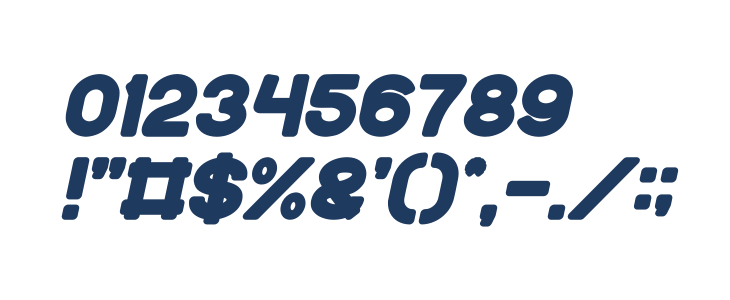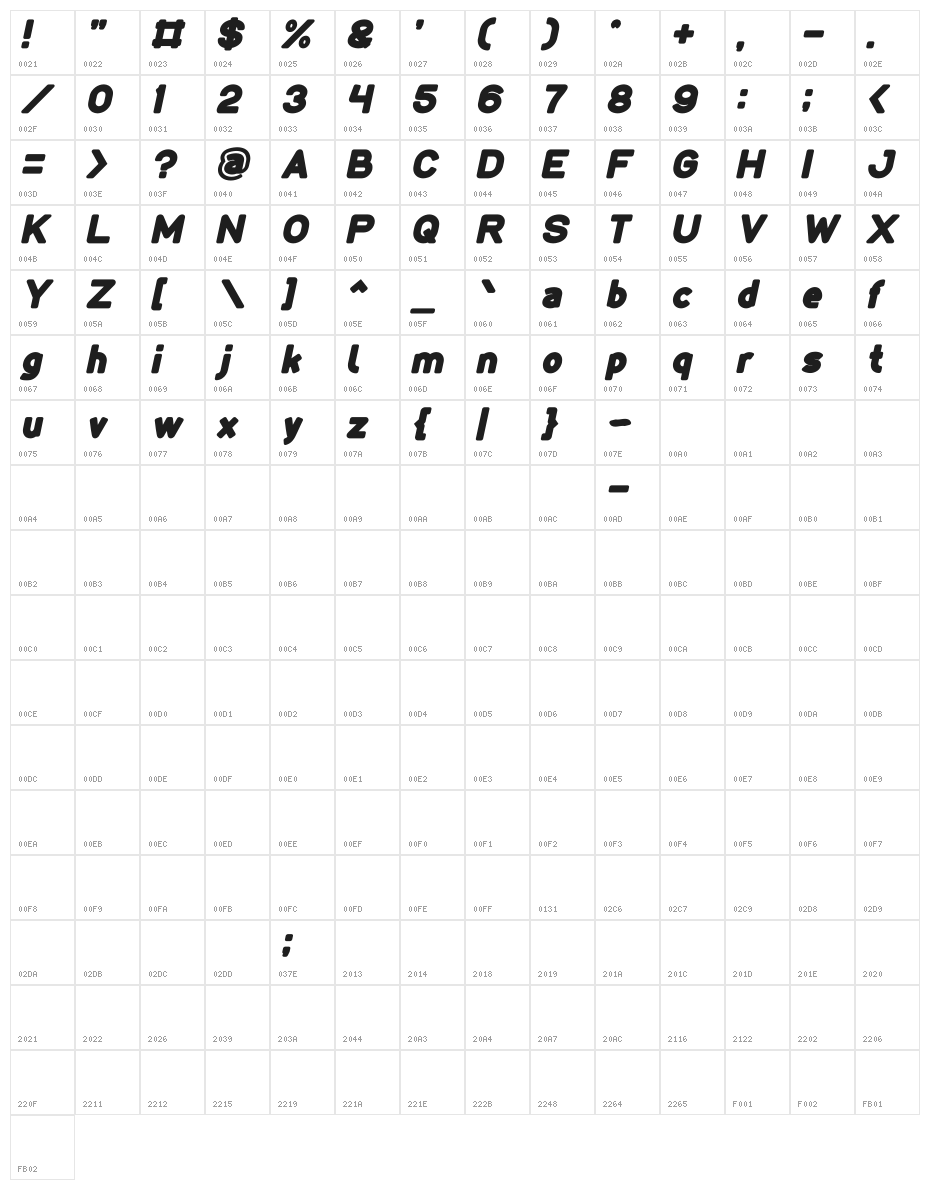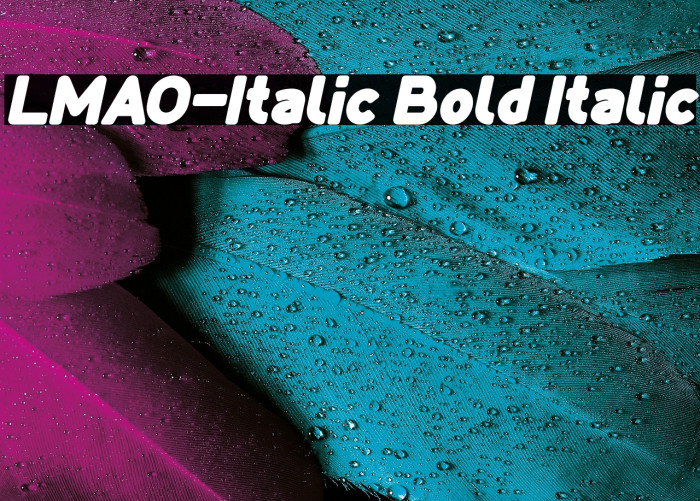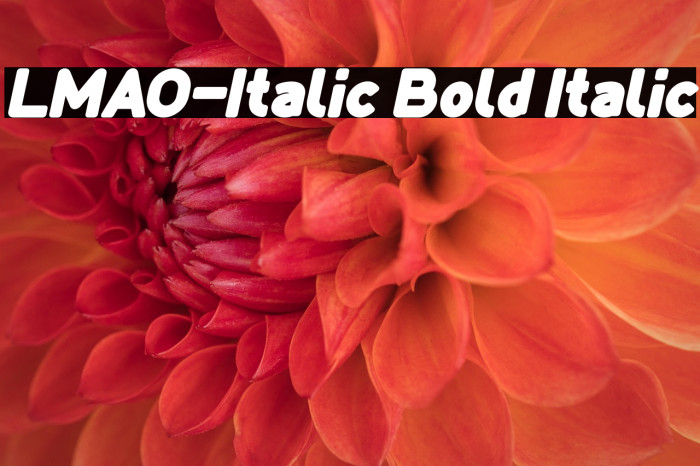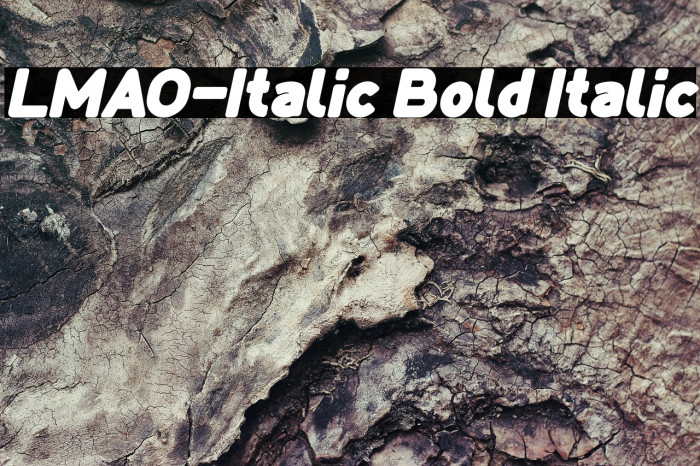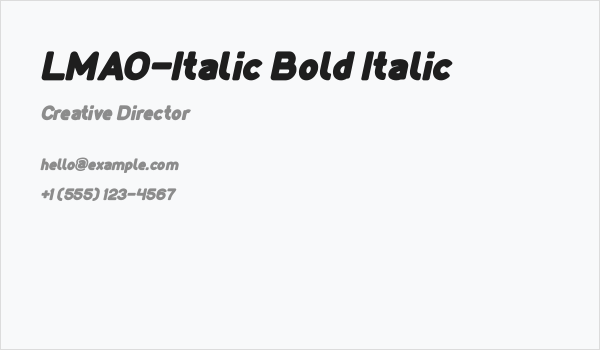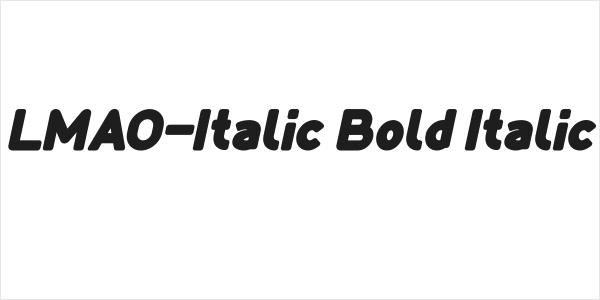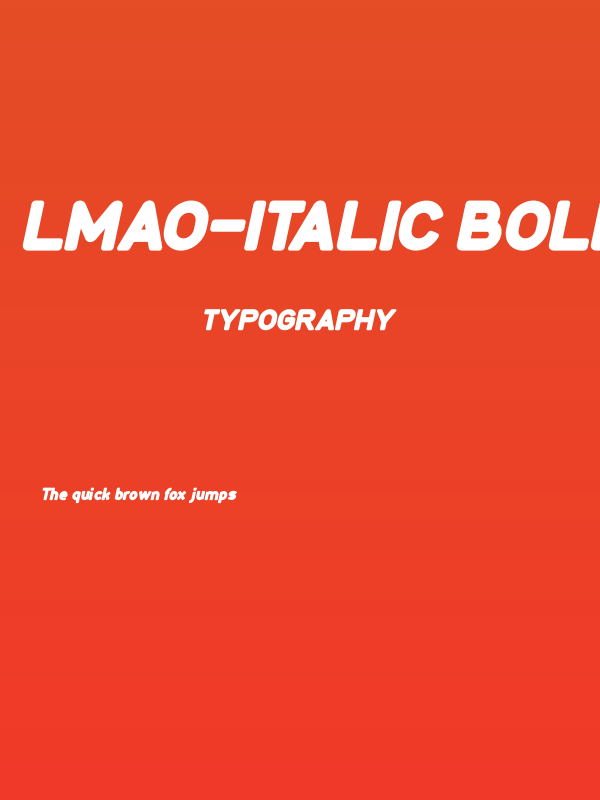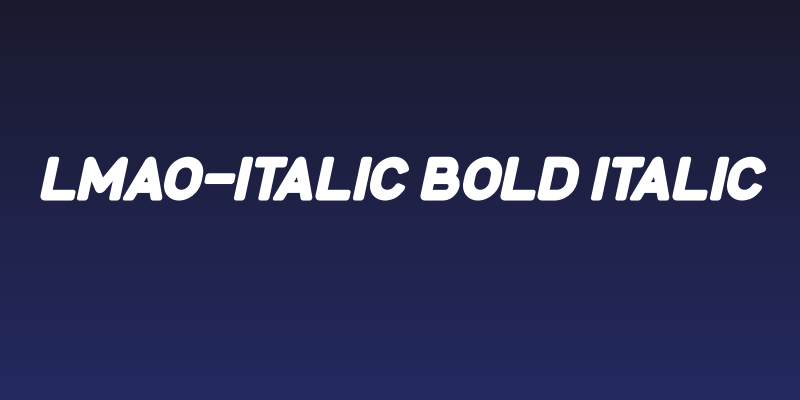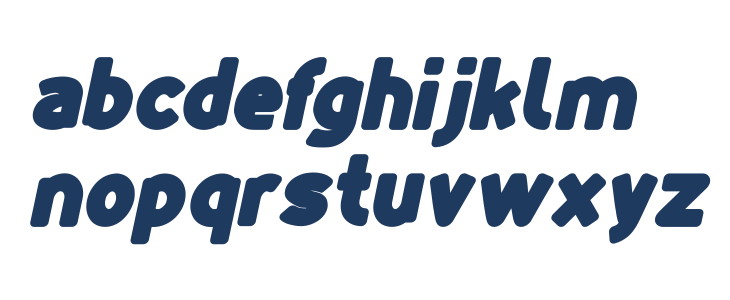
LMAO-Italic Bold Italic Font
LMAO-Italic Bold Italic Description
This font features a bold and italic style with a strong, impactful presence. The characters are rounded and slightly condensed, giving them a modern and playful appearance. The boldness of the font ensures high visibility, making it suitable for attention-grabbing headlines or titles. The italic slant adds a dynamic and energetic feel, enhancing its suitability for creative and contemporary designs. The uniform stroke width provides a consistent and clean look, while the rounded edges soften the overall appearance, making it approachable and friendly.